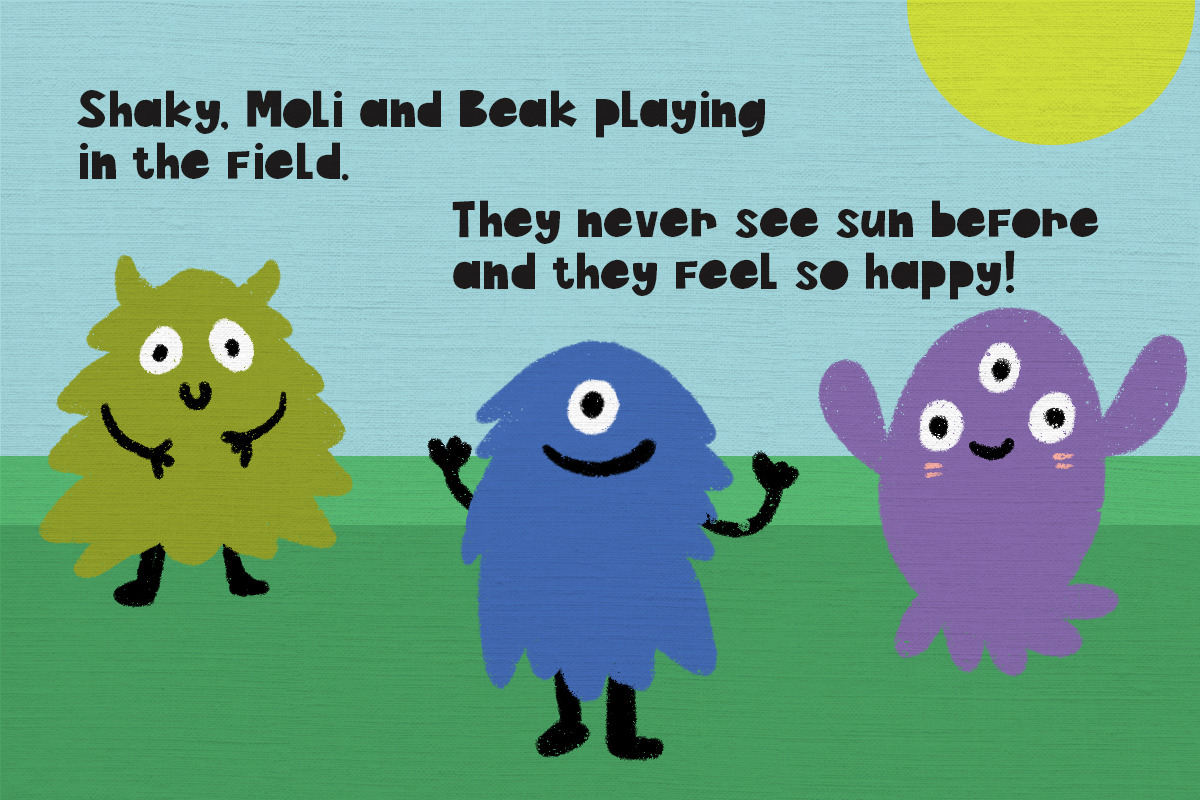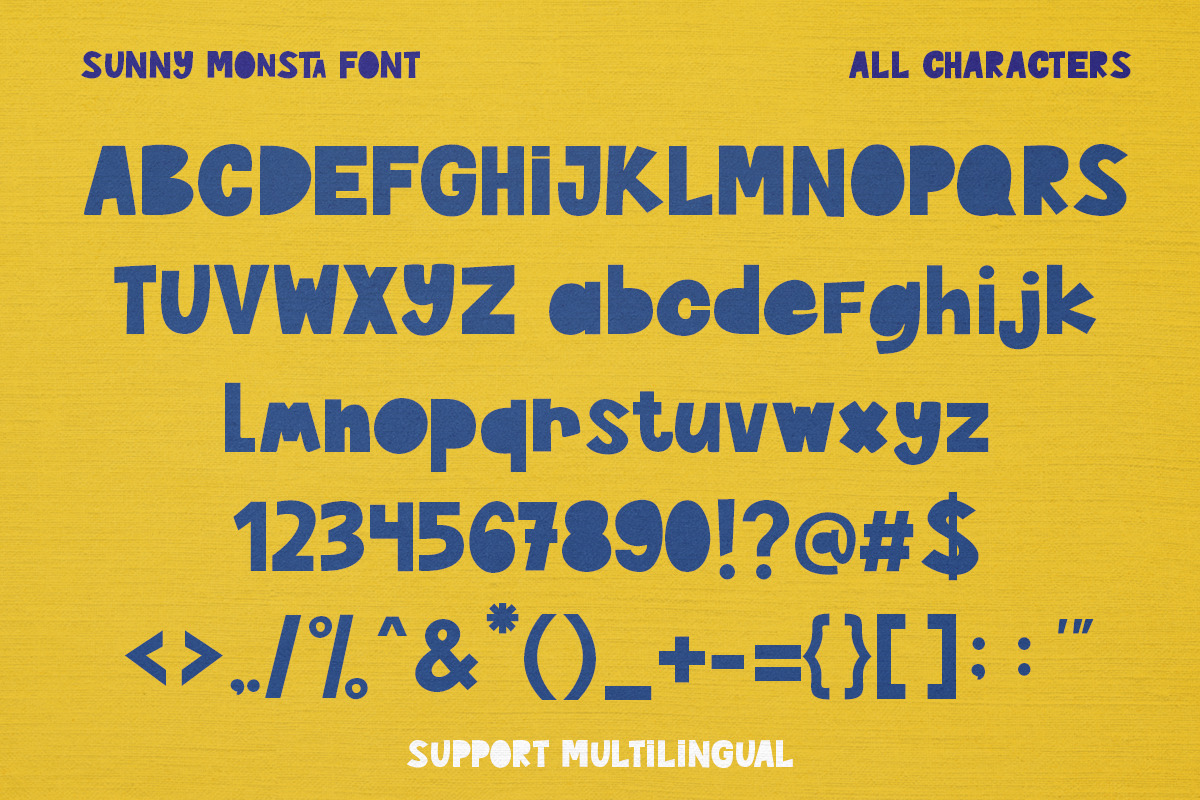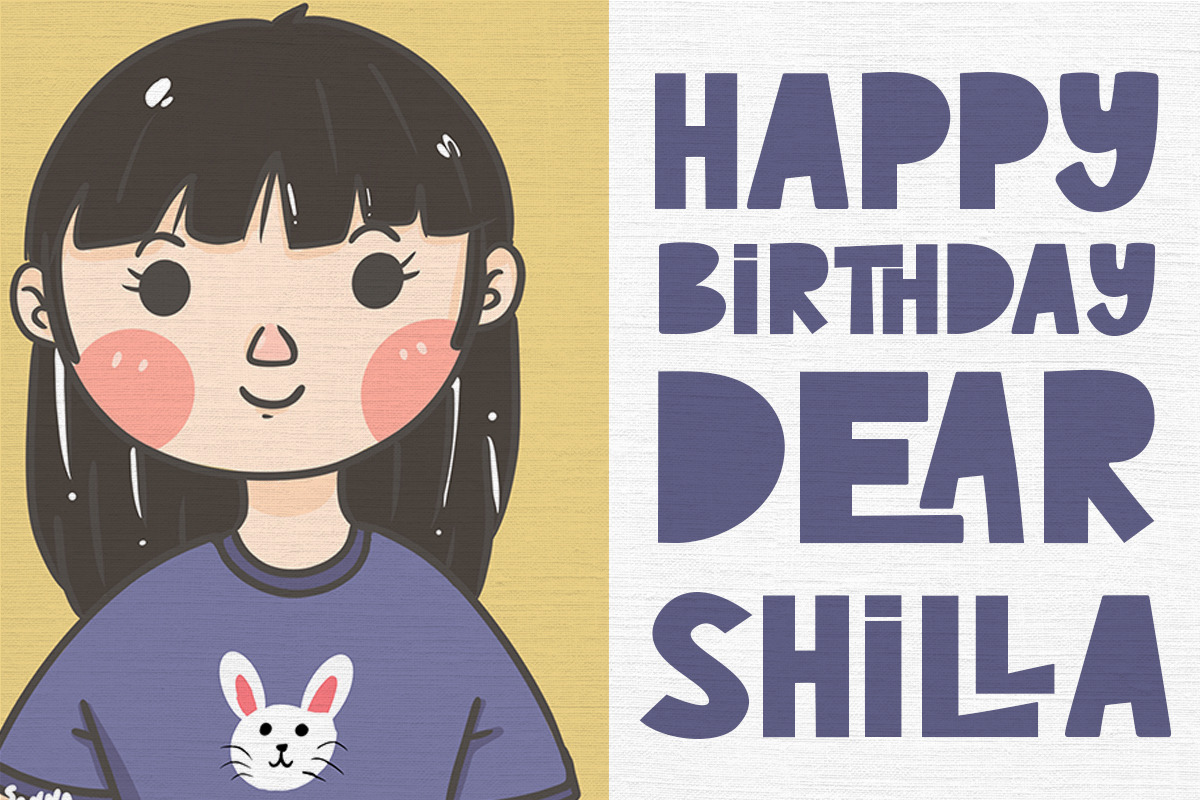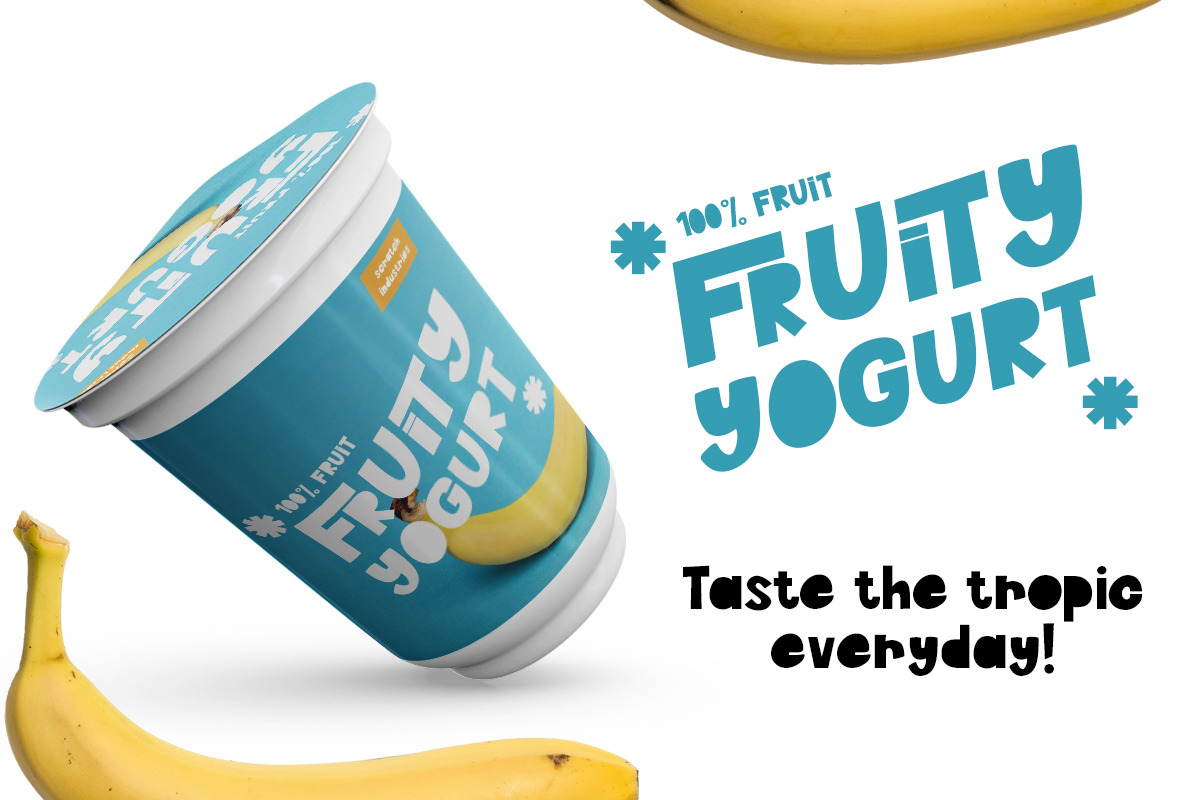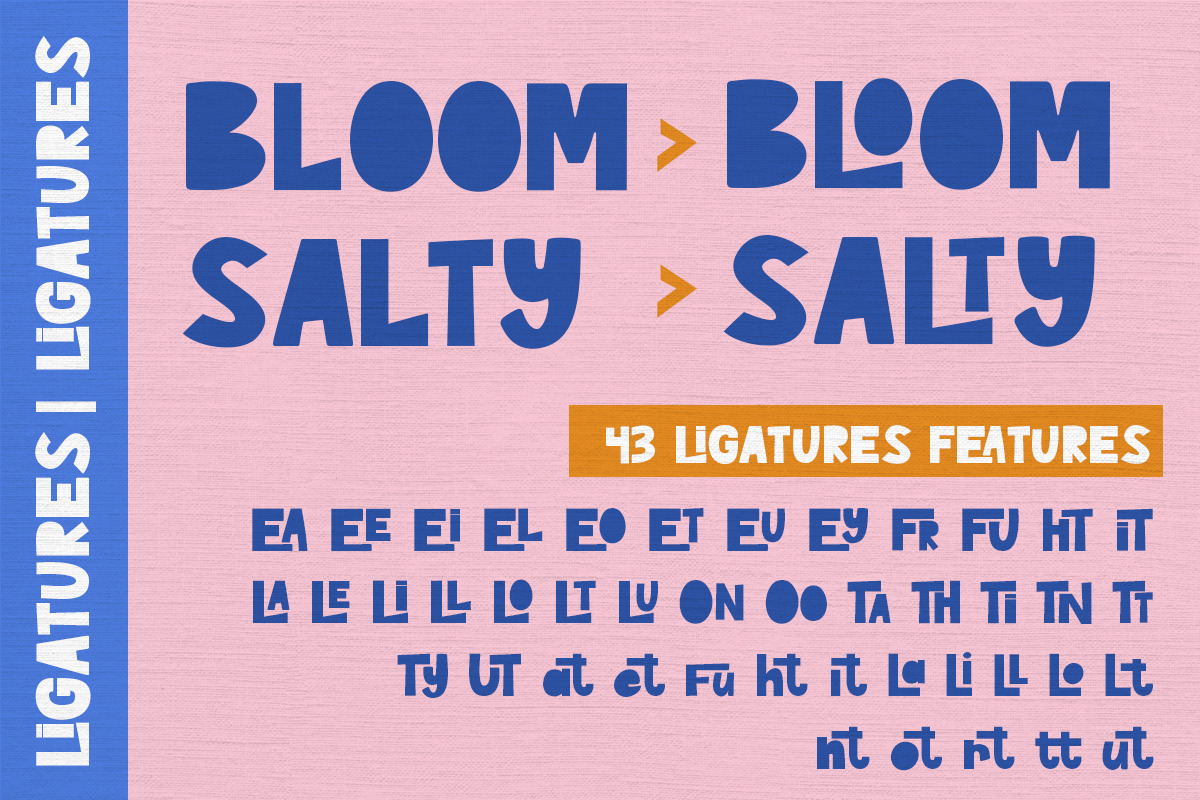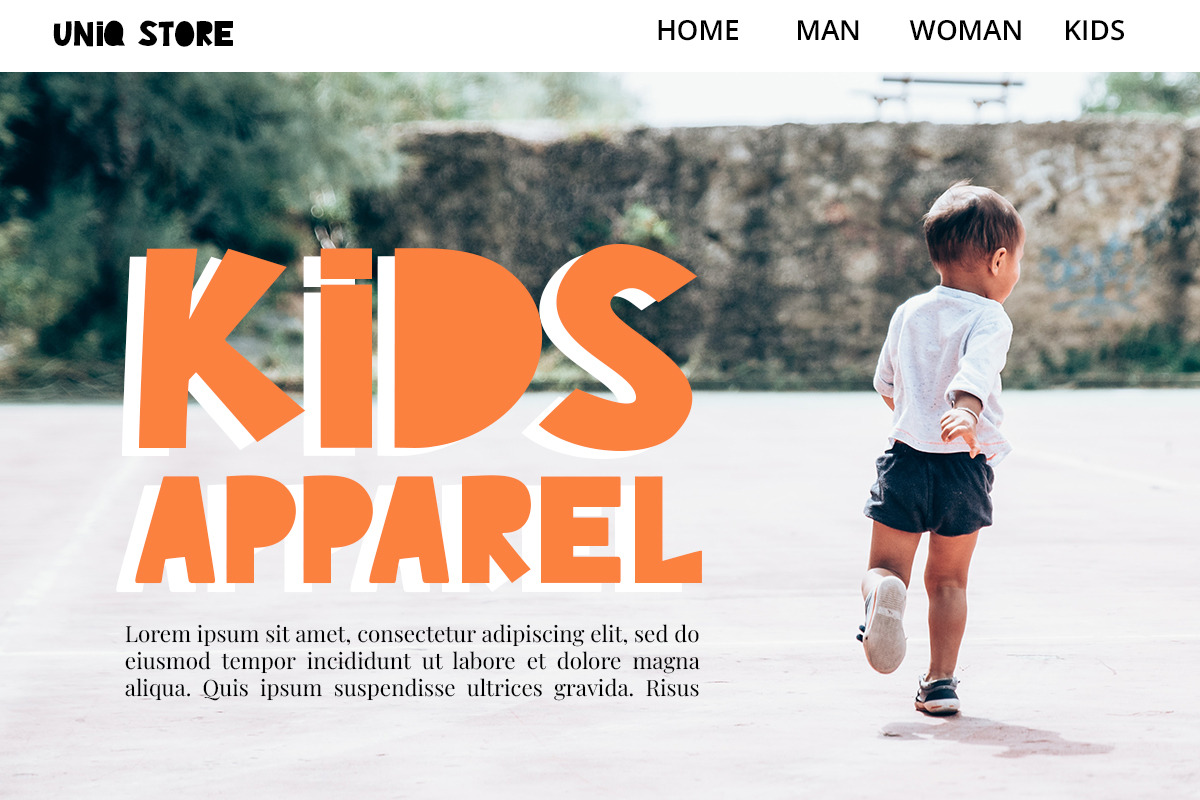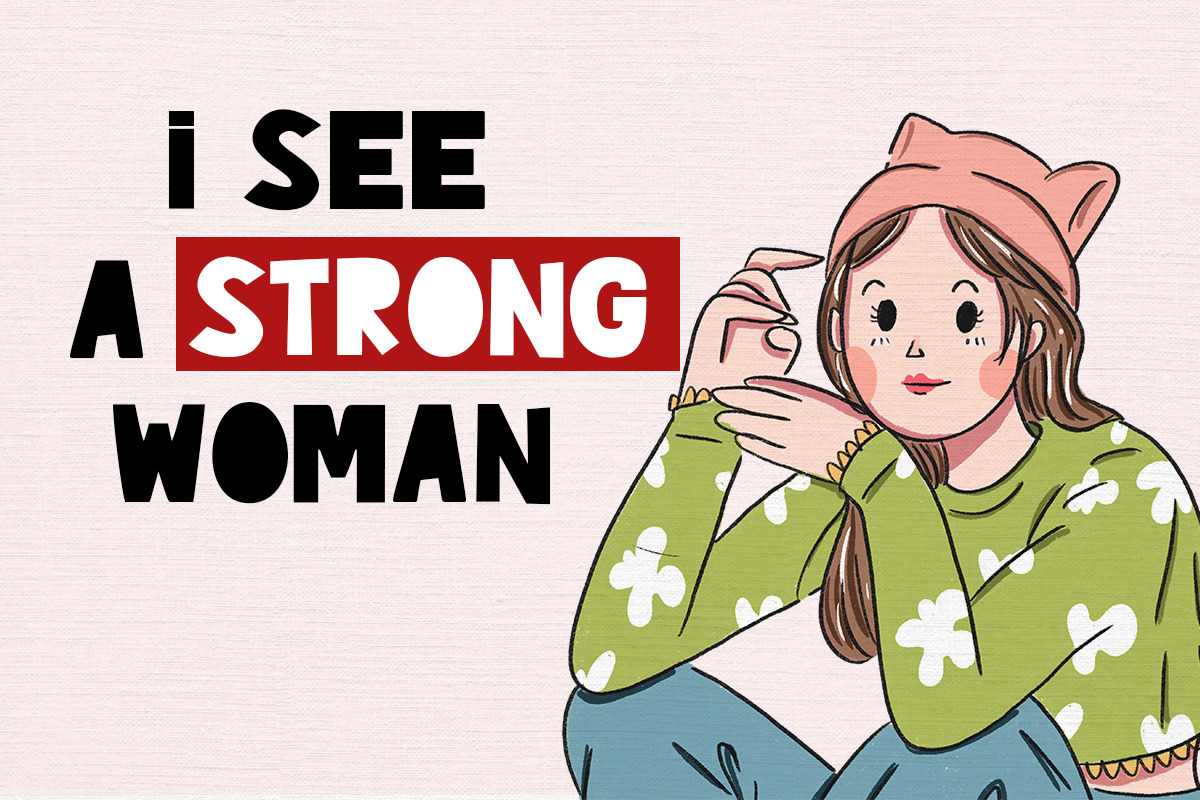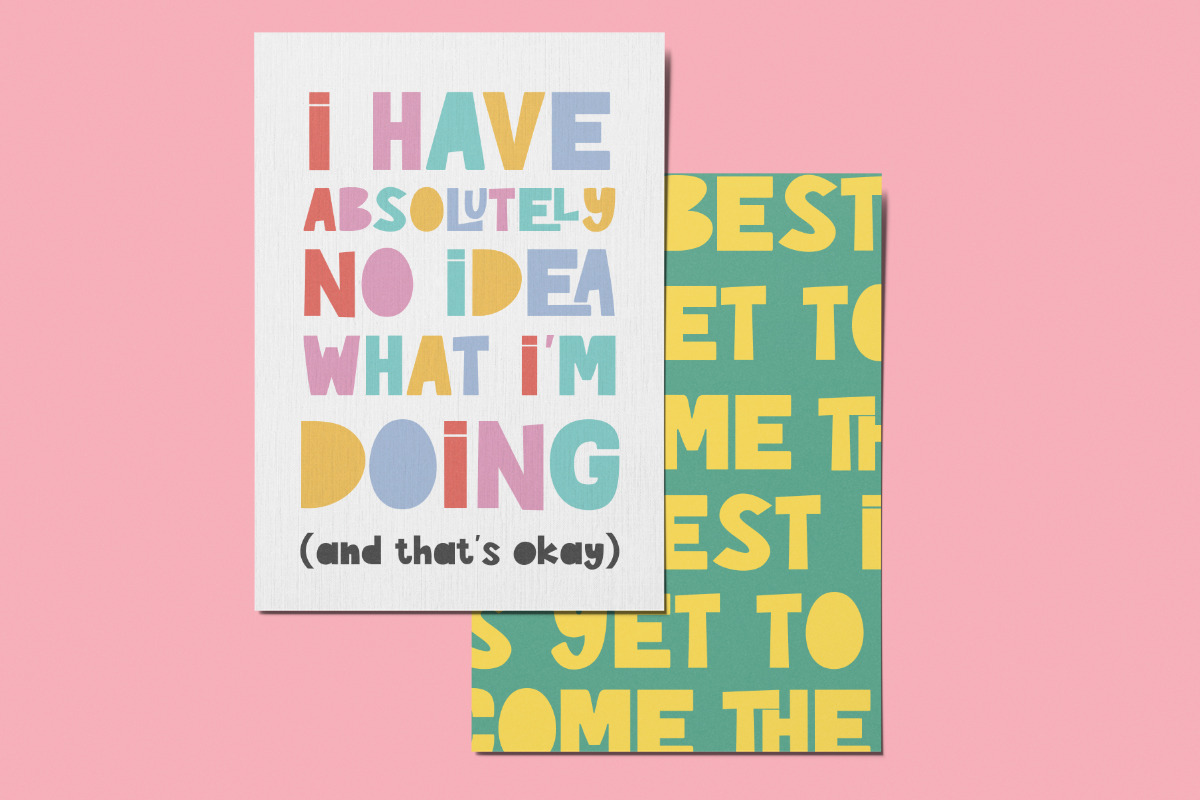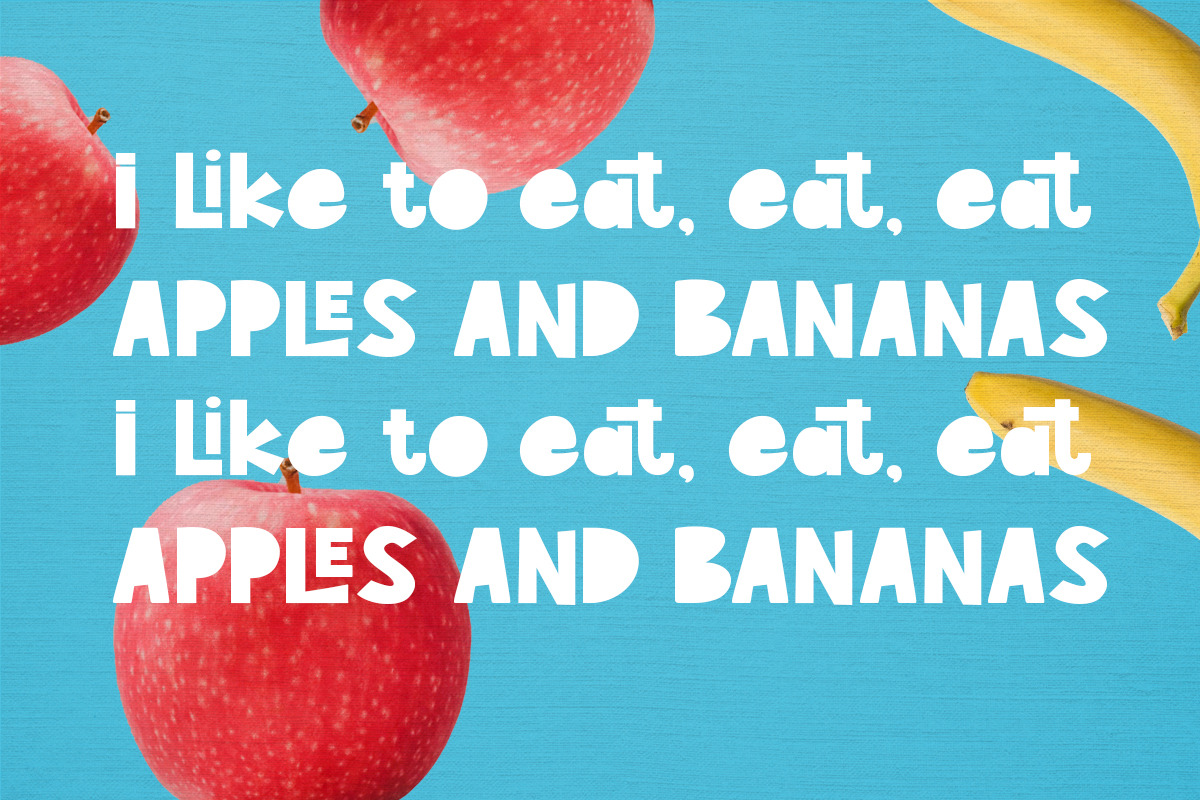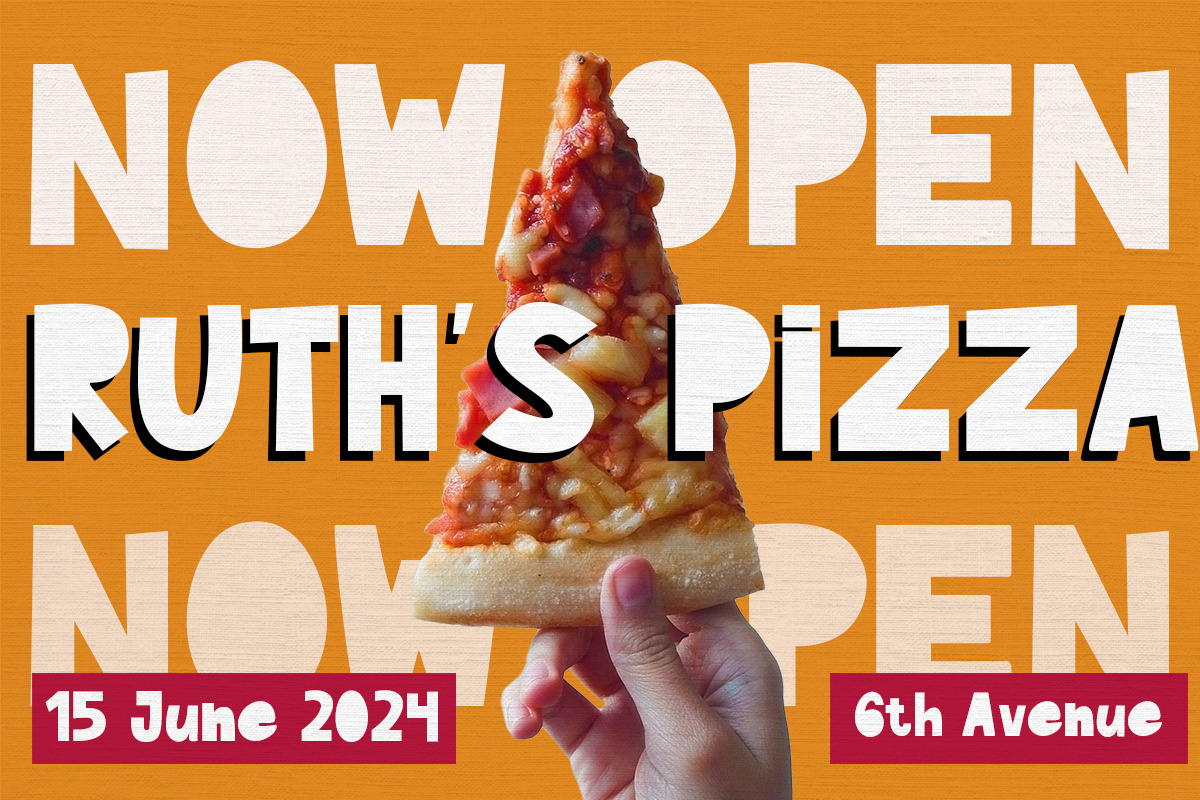
Sunny Monsta - Playful Typeface
Sunny Monsta is a playful and fun typeface. This type of font perfectly made to be applied especially for children design such as storybook, activity book, animation or others. This font also will be suitable for various design such as invitation, magazines, logos, labels, packaging, headlines, cards, fashion, stationery and others design that need eye-catching font.
- 43 Ligatures